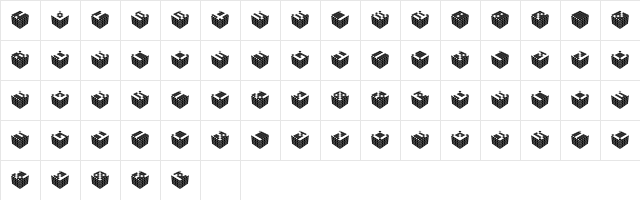
CUBICdot standard
Design Context for CUBICdot Typeface
CUBICdot celebrates the constraints of early digital type, turning pixel geometry into a distinctive and immediately recognisable style.
Well-suited to indie game interfaces, retro computing aesthetics, and pixel art-adjacent design work.